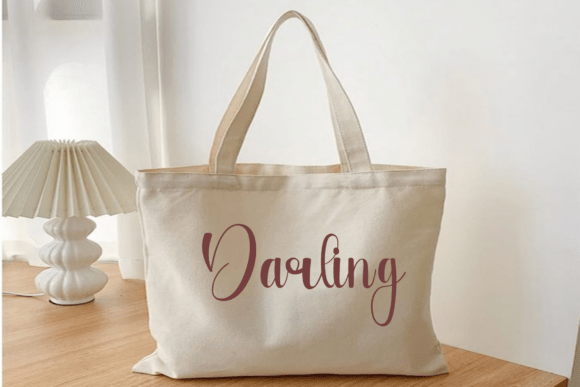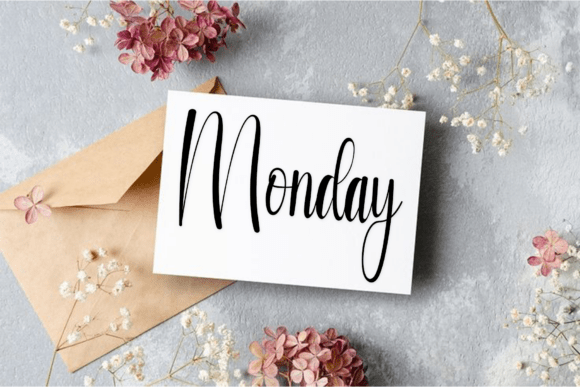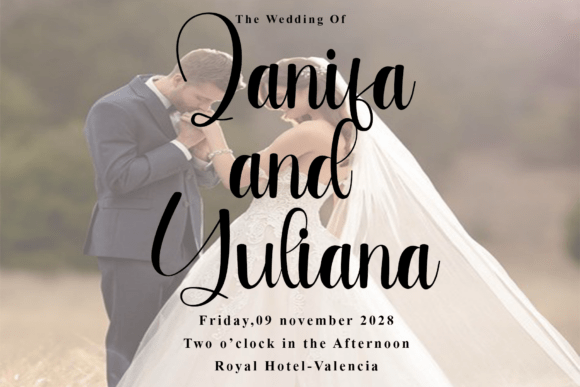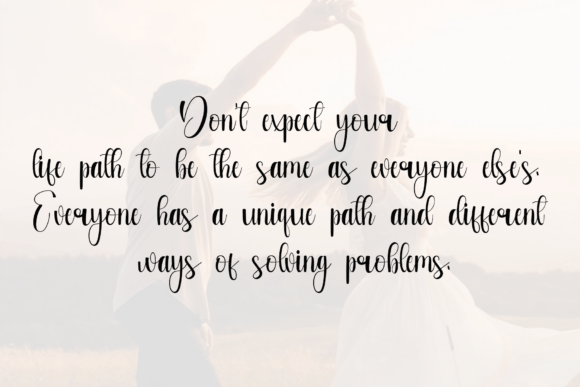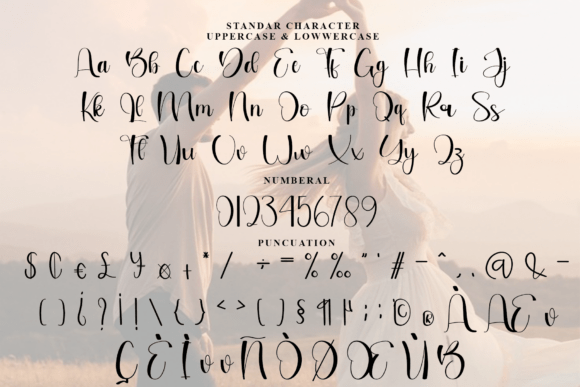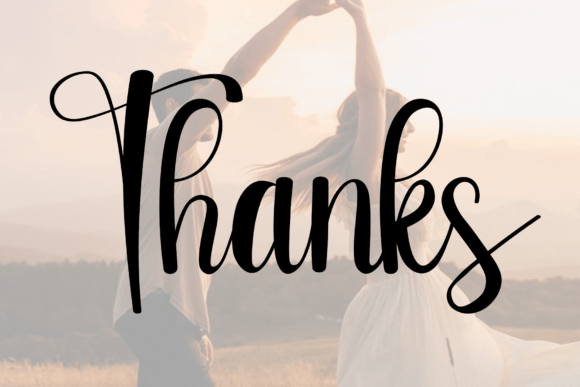
Dancing Font: Elevate Your Designs with a Bold and Sturdy Handwritten Style
Are you looking for a font that can add a touch of organic charm and a strong typographic presence to your designs? Look no further than the Dancing Font. This bold and sturdy handwritten font is perfect for designers and crafters who want to create visually appealing and impactful designs that exude a friendly and approachable character.
What Makes Dancing Font Unique?
The Dancing Font features thick, solid strokes with a distinct “bouncy” rhythm that sets it apart from other fonts. Its well-balanced proportions ensure that it remains impactful even in busy designs, making it perfect for a wide range of applications. Whether you’re working on outdoor lifestyle branding, organic product packaging, travel-themed graphics, or rustic event invitations, this font is sure to make your designs stand out.
Key Characteristics of Dancing Font
- Bold and Sturdy: The Dancing Font features thick, solid strokes that give it a strong and confident presence.
- Organic Charm: The font’s handwritten style and “bouncy” rhythm add a touch of organic charm and friendliness to your designs.
- Well-Balanced Proportions: The font’s well-balanced proportions ensure that it remains impactful even in busy designs.
- Handmade Look: The Dancing Font has a rustic, handmade look that’s perfect for designers and crafters who want to add a personal touch to their designs.
Perfect for Outdoor Lifestyle Branding
If you’re working on outdoor lifestyle branding projects, the Dancing Font is a perfect choice. Its bold and sturdy style makes it perfect for headlines and titles, while its organic charm adds a touch of friendliness and approachability. Whether you’re designing logos, brochures, or website headers, this font is sure to make your designs stand out.
Great for Organic Product Packaging
The Dancing Font is also great for organic product packaging. Its handmade look and feel make it perfect for products that want to convey a sense of natural and eco-friendly values. Whether you’re designing labels, packaging, or advertising materials, this font is sure to add a touch of personality and charm to your designs.
Ideal for Travel-Themed Graphics
If you’re working on travel-themed graphics, the Dancing Font is an ideal choice. Its bold and sturdy style makes it perfect for headlines and titles, while its organic charm adds a touch of adventure and excitement. Whether you’re designing posters, flyers, or social media graphics, this font is sure to make your designs stand out.
Perfect for Rustic Event Invitations
The Dancing Font is also perfect for rustic event invitations. Its handmade look and feel make it perfect for weddings, festivals, and other outdoor events. Whether you’re designing invitations, programs, or signage, this font is sure to add a touch of personality and charm to your designs.
Part of the “Unique and Professional” Collection
The Dancing Font is part of the “Unique and Professional” collection, which means that it’s been carefully crafted to meet the needs of designers and crafters who want to create visually appealing and impactful designs. With its bold and sturdy style, organic charm, and well-balanced proportions, this font is sure to become a valuable addition to your design toolkit.
In conclusion, the Dancing Font is a bold and sturdy handwritten font that’s perfect for designers and crafters who want to add a touch of organic charm and a strong typographic presence to their designs. With its unique characteristics, well-balanced proportions, and handmade look, this font is sure to make your designs stand out. Whether you’re working on outdoor lifestyle branding, organic product packaging, travel-themed graphics, or rustic event invitations, the Dancing Font is a great choice.